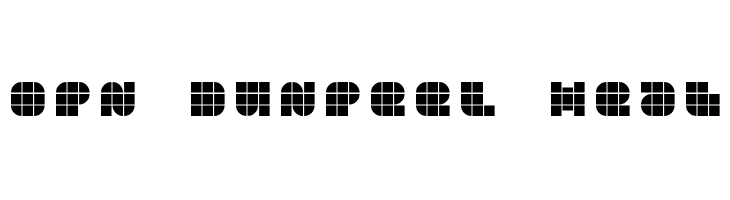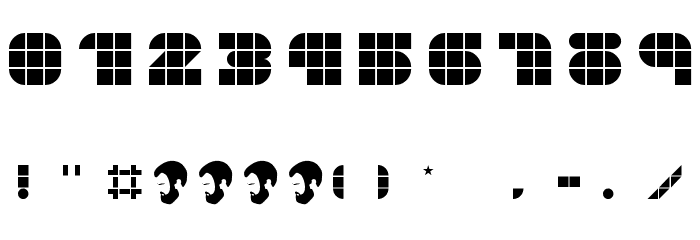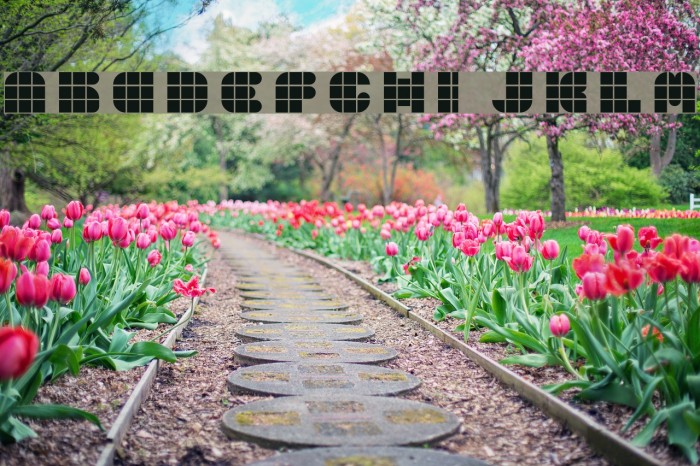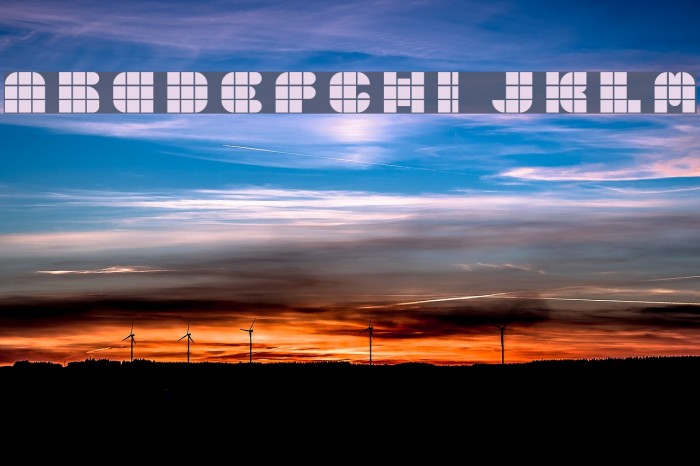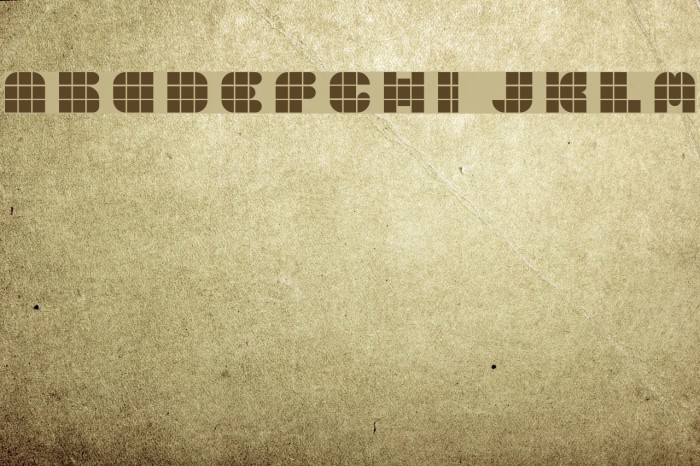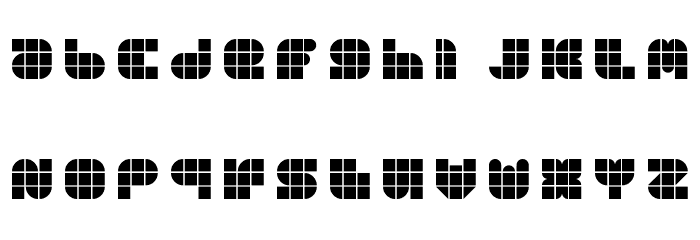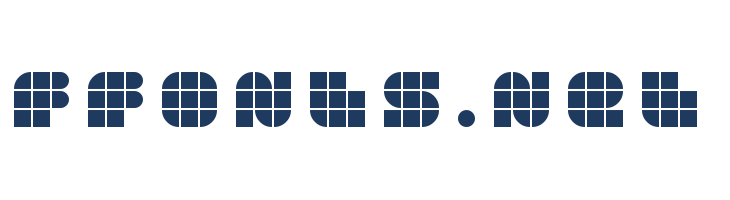
OPN DunPeel Heat Font
OPN DunPeel Heat Description
This font features a bold, geometric design with a grid-like pattern that creates a sense of structure and modernity. Each character is composed of solid black blocks arranged in a way that forms the letter shapes, giving it a digital and futuristic appearance. The uppercase and lowercase letters maintain a consistent style, with the grid pattern providing a unique texture. Numbers and special characters follow the same design principles, ensuring uniformity across all glyphs. The font's distinct style makes it stand out, ideal for projects that require a modern and technological feel.
| Proposed Projects | Ideal for tech-related branding, digital art, futuristic posters, and modern advertising campaigns. |